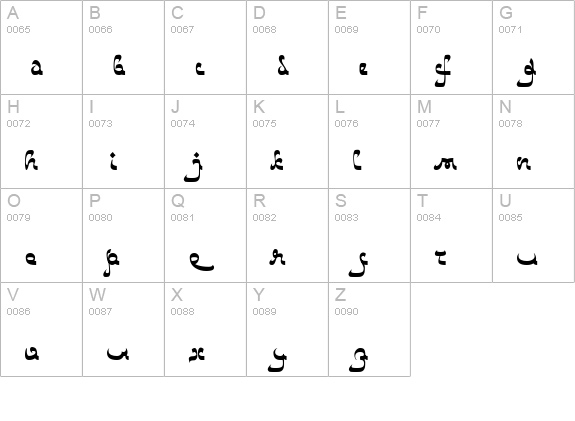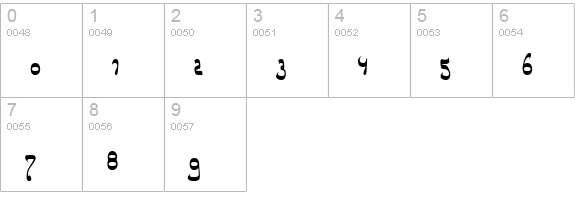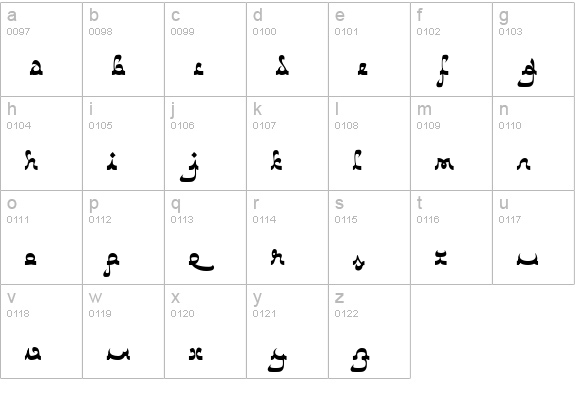
Catharsis Bedouin font is a stunning display typeface inspired by the intricate patterns and designs found in traditional Bedouin art. With its bold strokes and intricate details, this font exudes a sense of cultural richness and heritage. Designed with a keen eye for detail, Catharsis Bedouin font is perfect for adding a touch of exotic flair to your design projects. Whether you're working on branding materials, posters, or invitations, this font will make a statement and captivate your audience. What's even better is that Catharsis Bedouin font is available for free download at FontsMarket.com. So you can easily add this unique and eye-catching font to your collection without any cost. Don't miss out on the opportunity to elevate your designs with Catharsis Bedouin font – download it today and let your creativity soar!